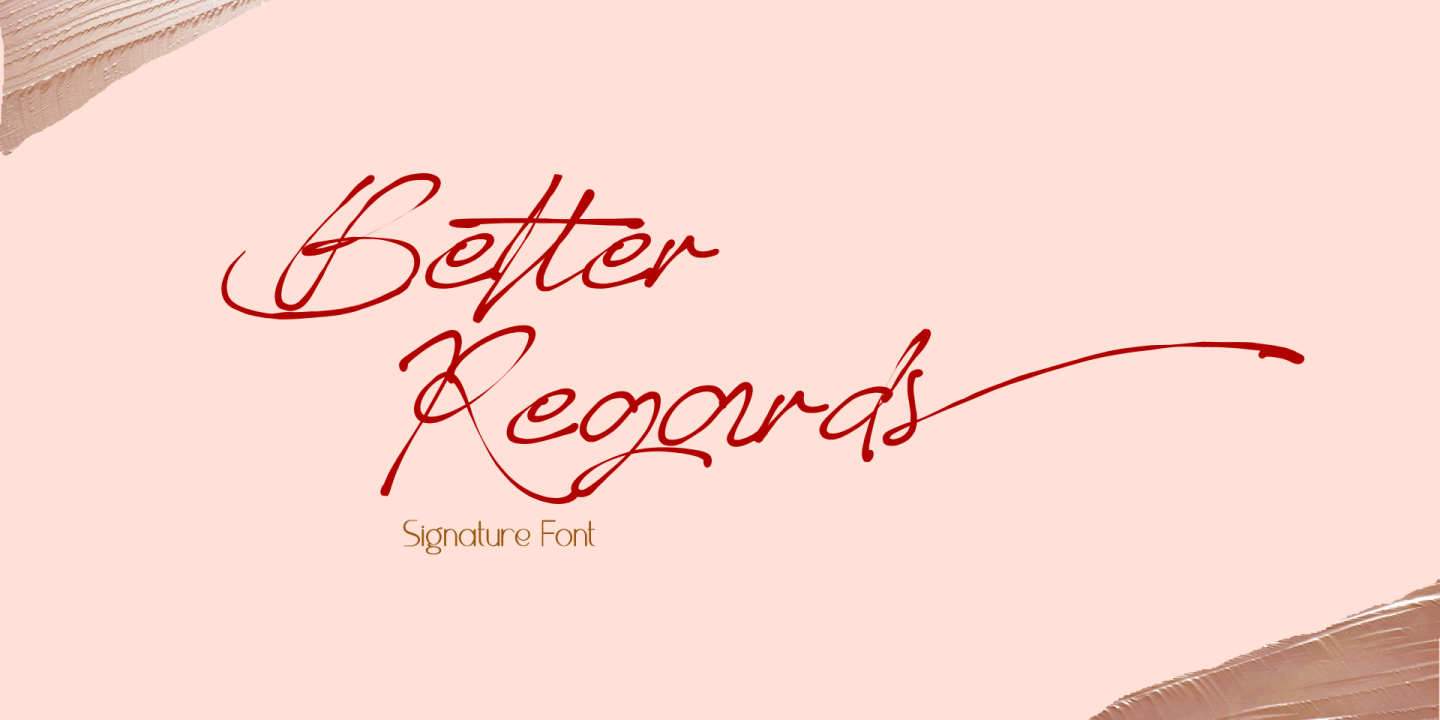
Better Regards Font Free Download is an elegant, modern handwritten script typeface that exudes sophistication and warmth. With its flowing curves, stylish ligatures, and natural hand-lettered feel, Better Regards Font is perfect for wedding invitations, branding, logos, greeting cards, packaging, and social media graphics. Its romantic and refined design makes it ideal for projects that aim to convey personal charm, elegance, and creativity.
Whether you're designing heartfelt stationery, chic branding, or elegant marketing materials, Better Regards Font adds sophistication and authenticity to your work. Its balance of style and readability ensures it works seamlessly across both print and digital applications.